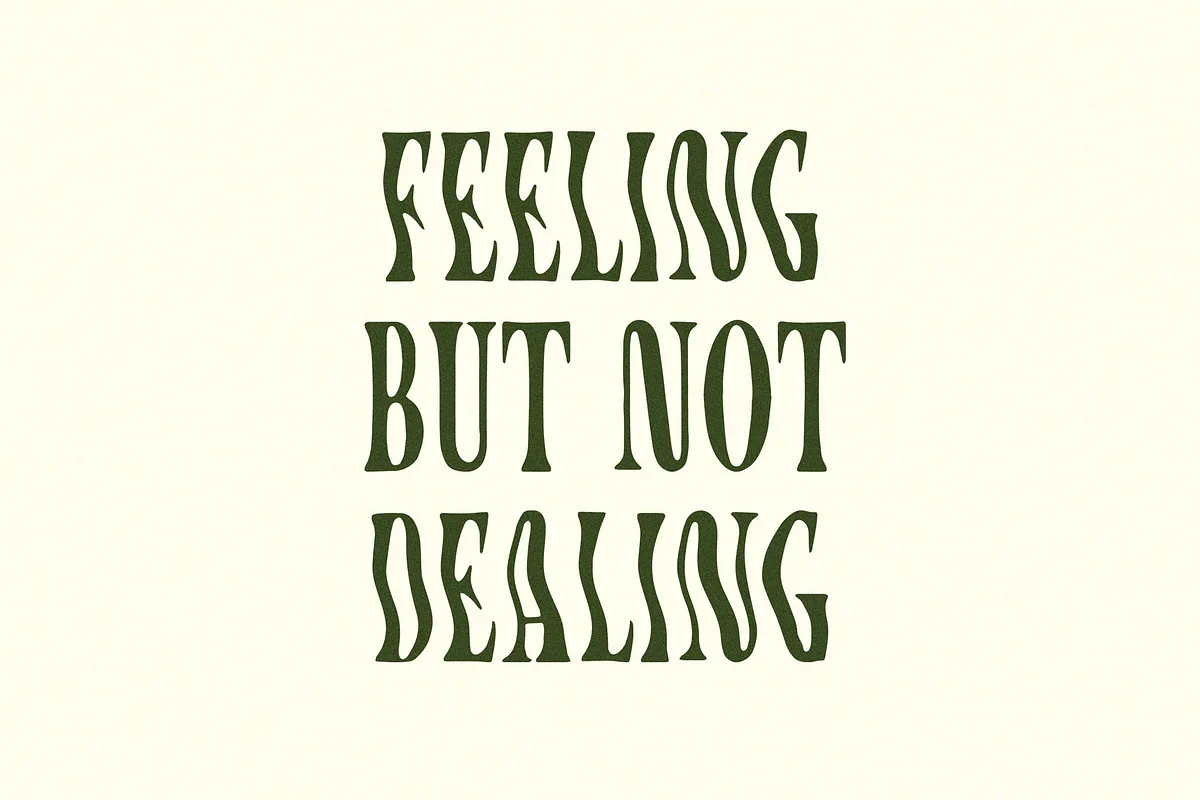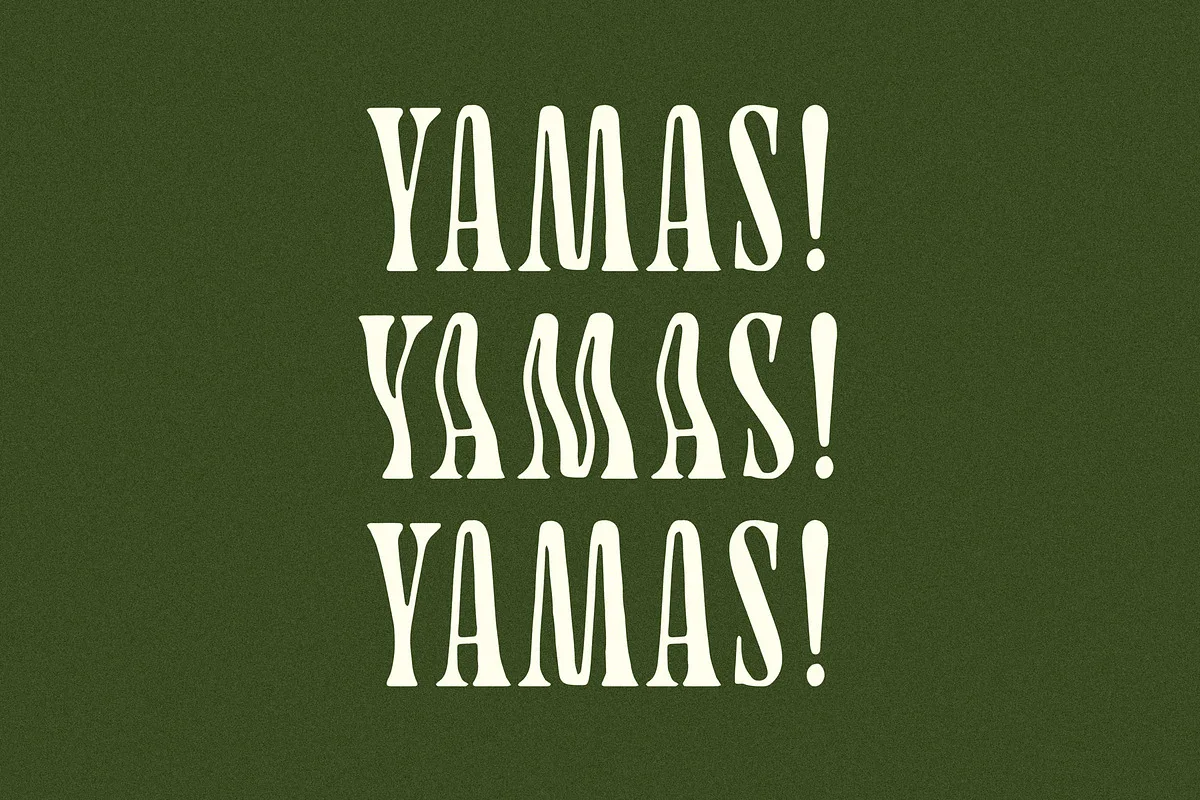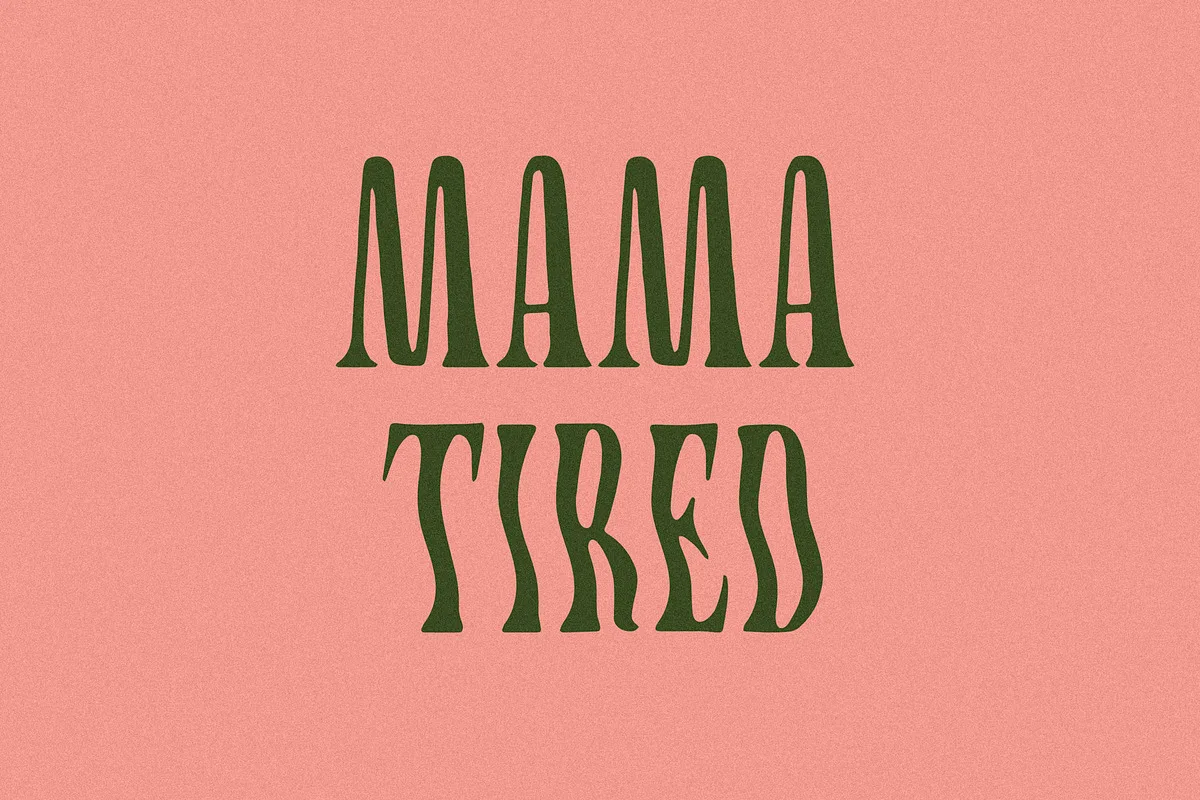
Yamas is a soft typeface with a wavy alternative spit out with the shift key. Hand drawn with the same song on repeat for consistency. Includes A-Z, numbers 0-9, basic punctuation and alt versions as well.